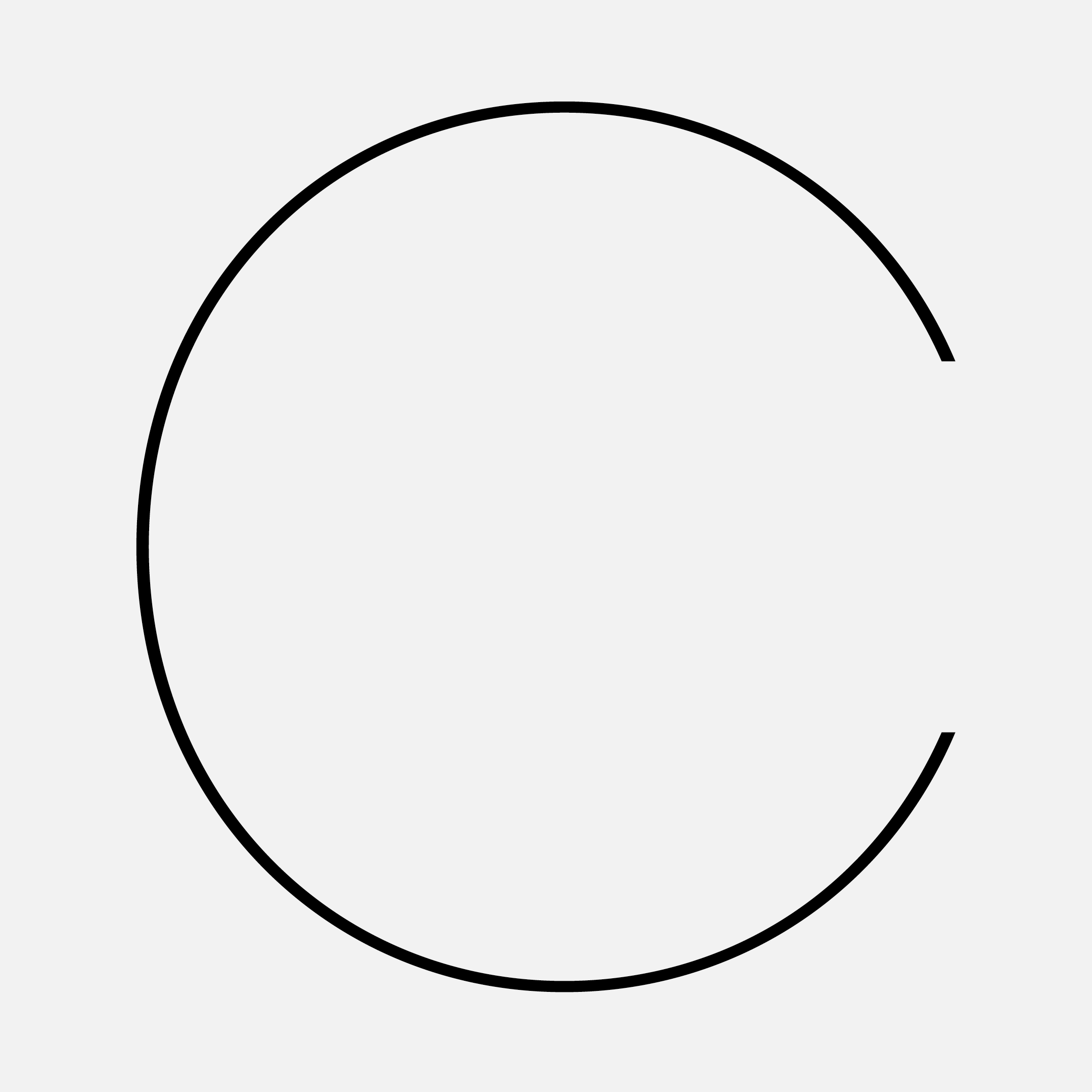
The sister pair of typefaces — the sans serif Pepi and the slab serif Rudi — is based on a playful engagement with the fundamental geometric shapes of the circle, square, and triangle, elements that formed the foundation of early typographic modernism.
The simple, Bauhaus-inspired functional typefaces of Herbert Bayer and Paul Renner established an entirely new trend at the beginning of the twentieth century. Typefaces derived from the circle achieved success through their novelty, objectivity, and fresh formal qualities. When Rudolf Wolf’s slab serif Memphis — often described as “Futura with serifs” — was later released, it effectively created a new stylistic school suited to the emerging needs of modern design, for which earlier typefaces appeared too ornamental, outdated, or obsolete.
Pepi and Rudi introduce certain contemporary features into this proven concept of constructed type. They create a regular rhythm by harmonizing character widths and increasing the x-height. An extreme range of ten weights, from Hair to Ultra, together with corresponding slanted styles, supports versatile use across the full spectrum of graphic design. Carefully designed diacritics, clear punctuation, tabular figures, ligatures, arrows, and alternate lowercase forms represent a standard that will satisfy anyone who needs to work efficiently with a neutral geometric display typeface.